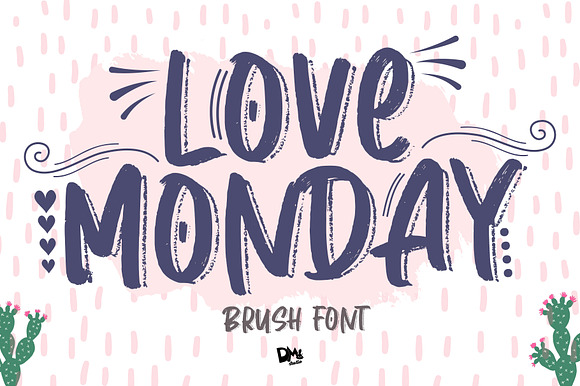
Love Monday - Brush Font
Love Monday Brush Font , will make your day more cheerful! Love the chic and chalky brush style!
All in caps Characters
- All in caps Characters
- Numerics
- Multilingual
Love Monday - Brush Font by Dm Studio fits naturally into Branding, posters, packaging, typography.